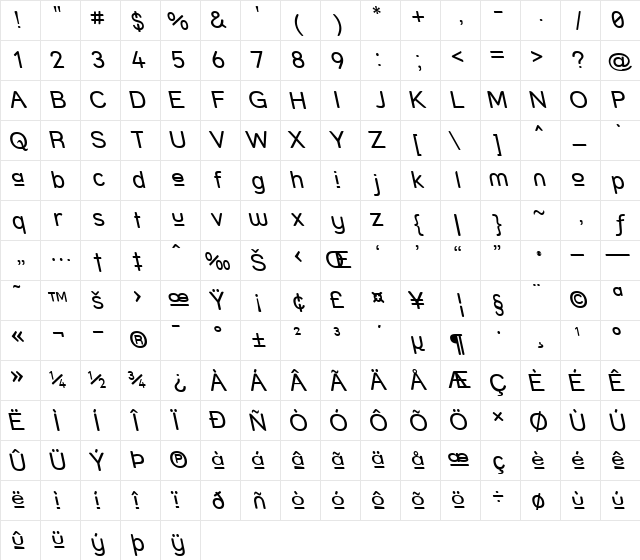
Street - Upper Reverse Italic
| Designer | Graham Meade |
Design Context for Street - Upper Reverse Typeface
Street - Upper Reverse is a composed and adaptable typeface that performs quietly and consistently across a wide range of design contexts. The slanted form adds forward momentum and visual energy.